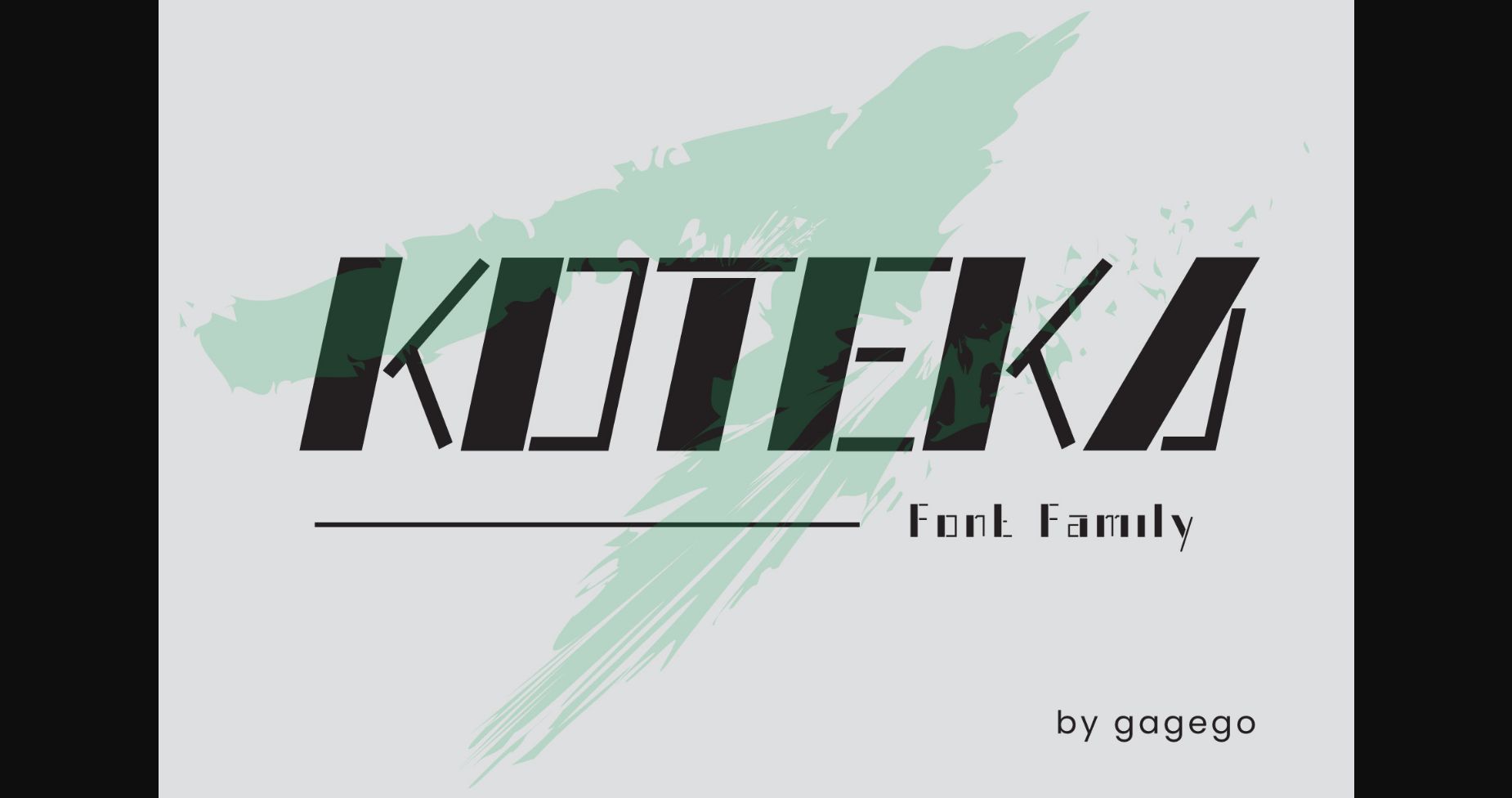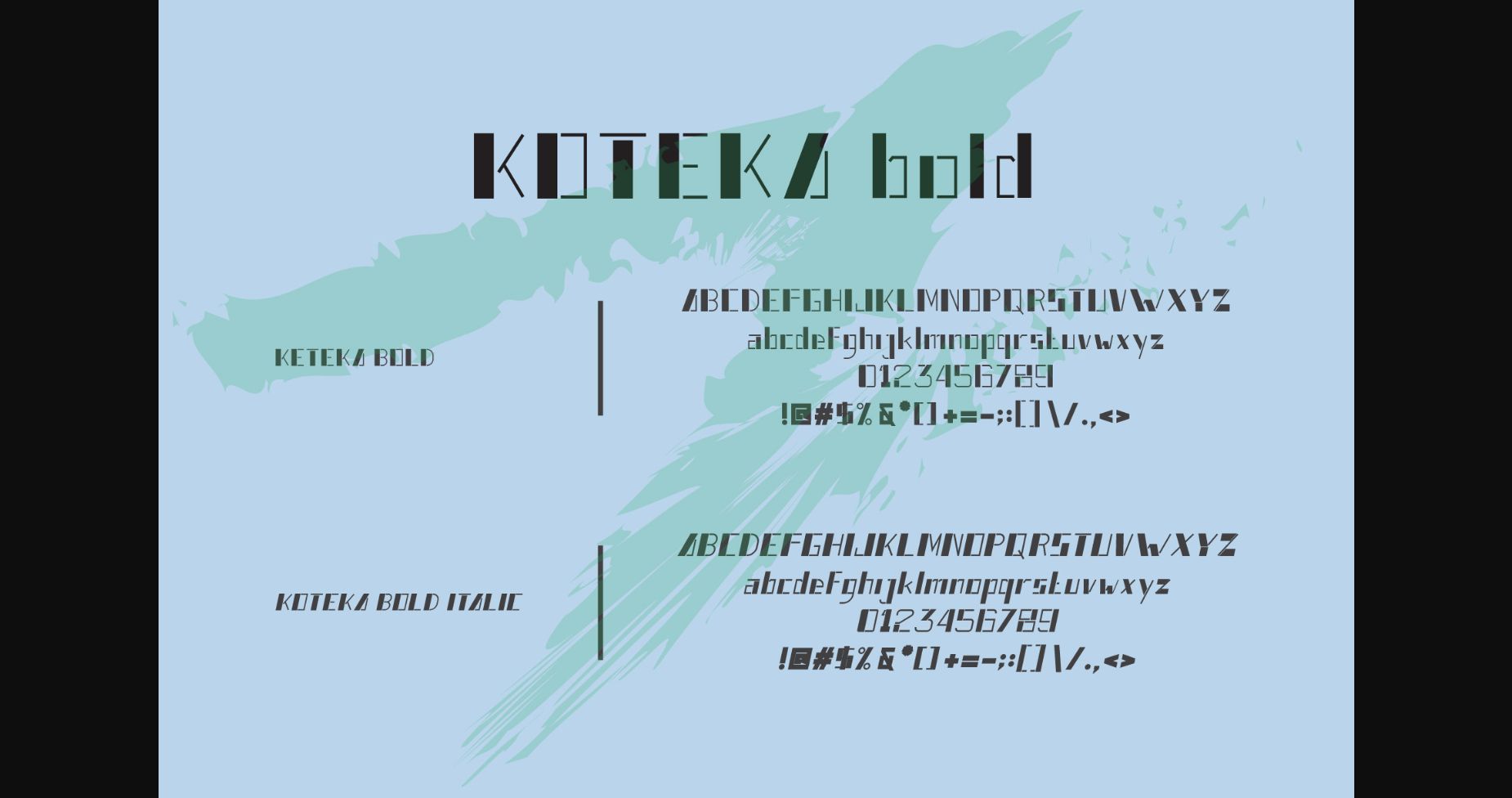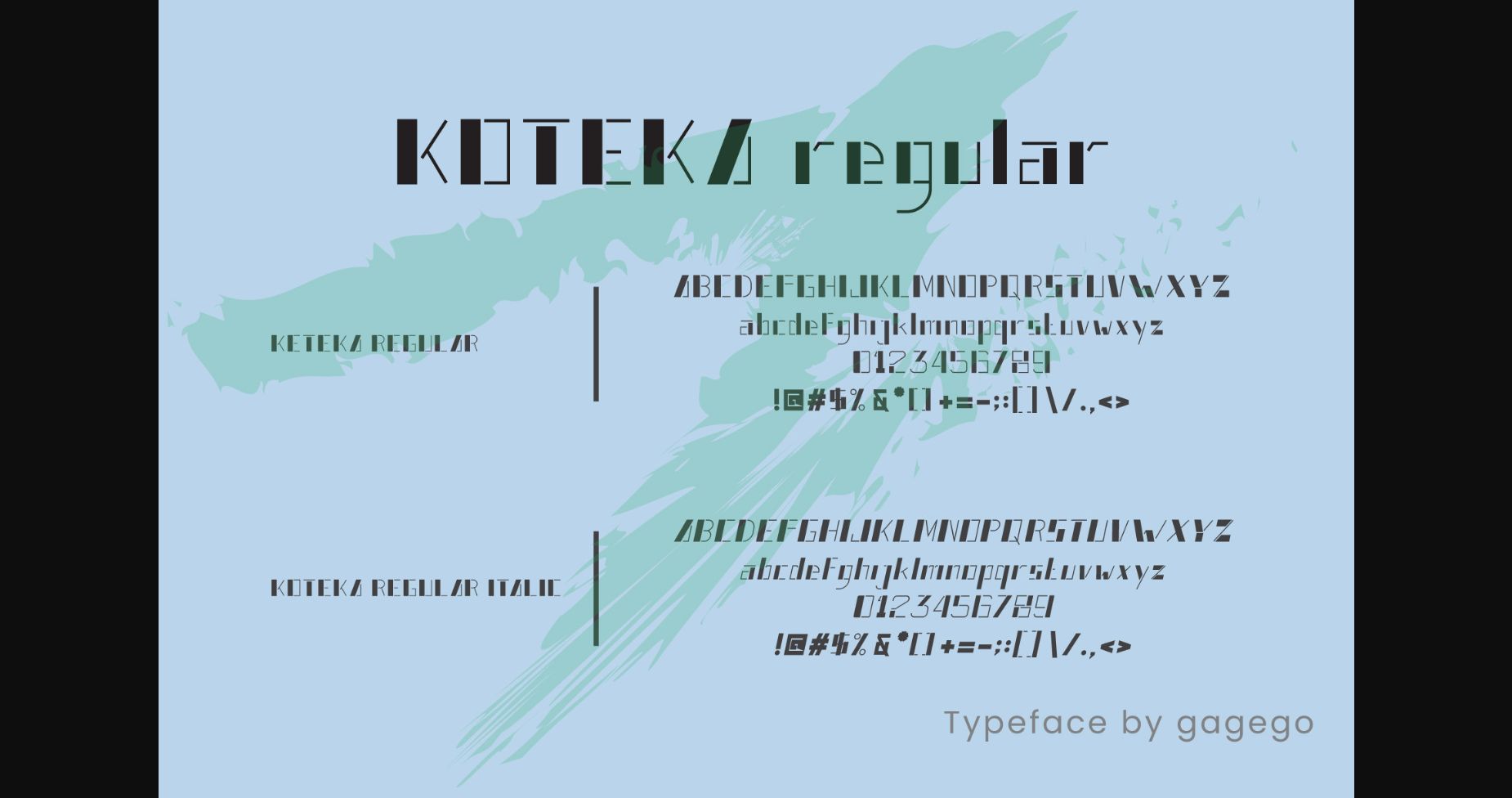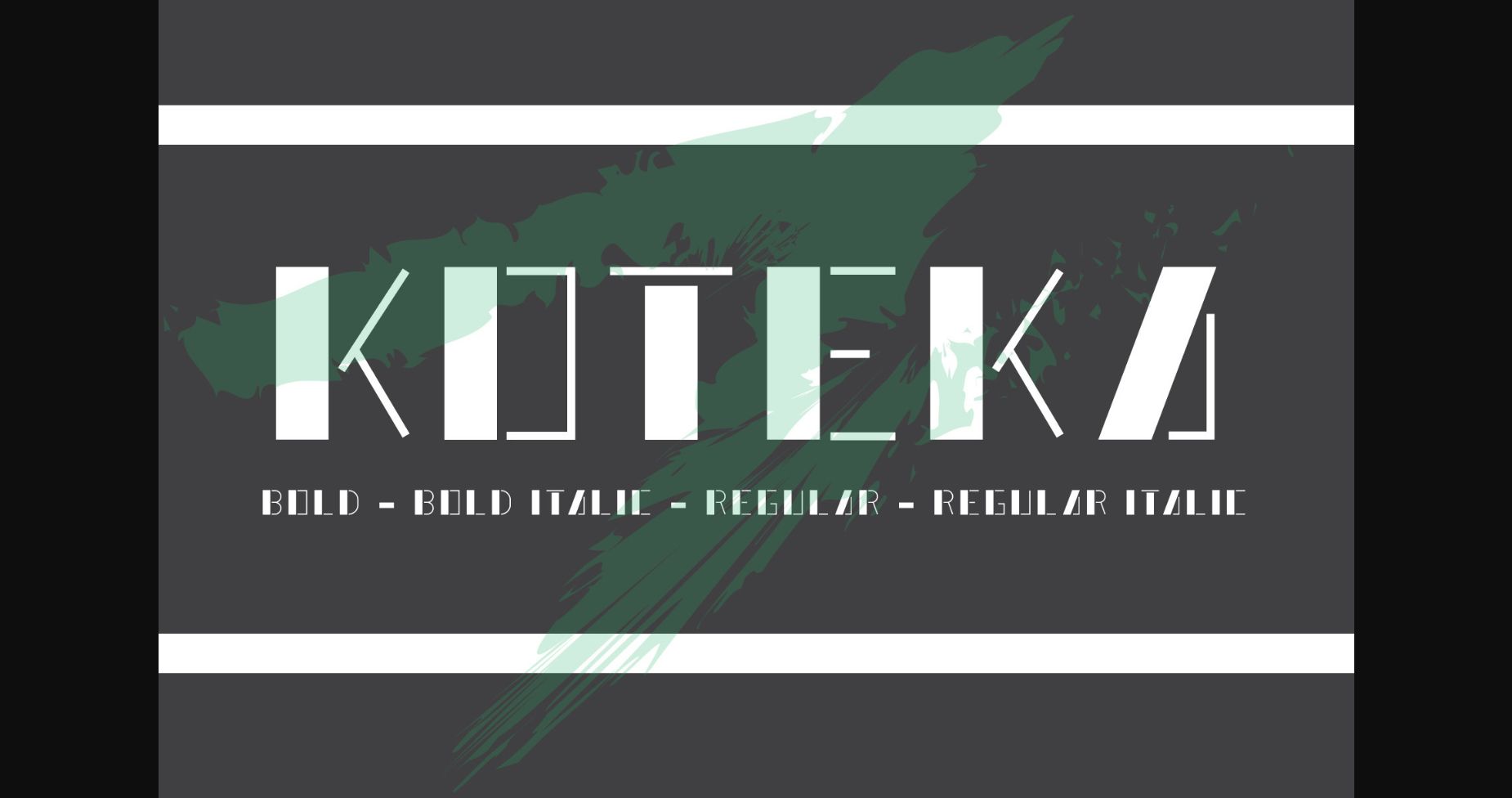
Koteka Font
About Koteka Font
Koteka is a sleek and contemporary typeface designed for the modern era. With its clean and minimalistic lines, this font offers a fresh take on the classic sans-serif style. Its unique letterforms and smooth curves make it perfect for branding, editorial design, and digital media.